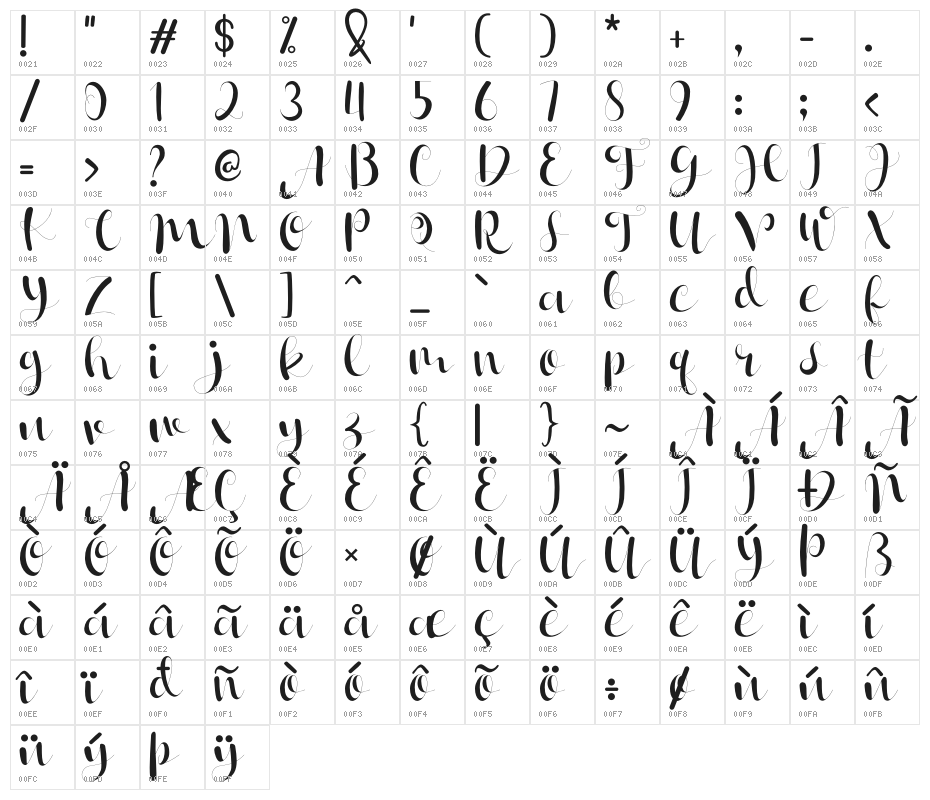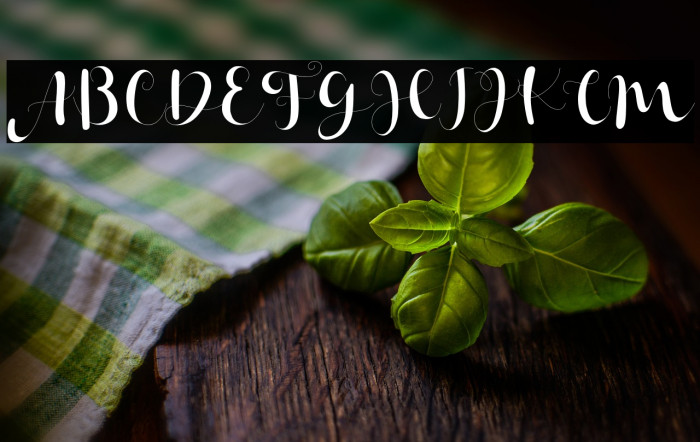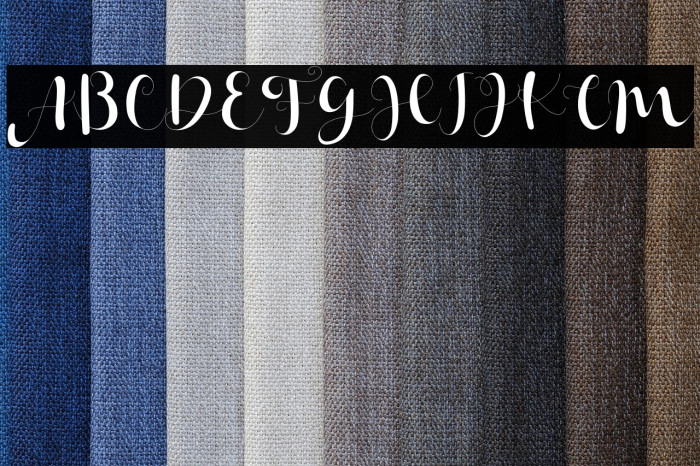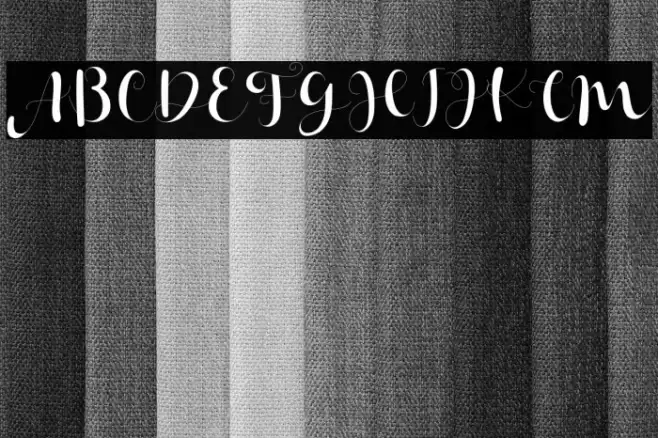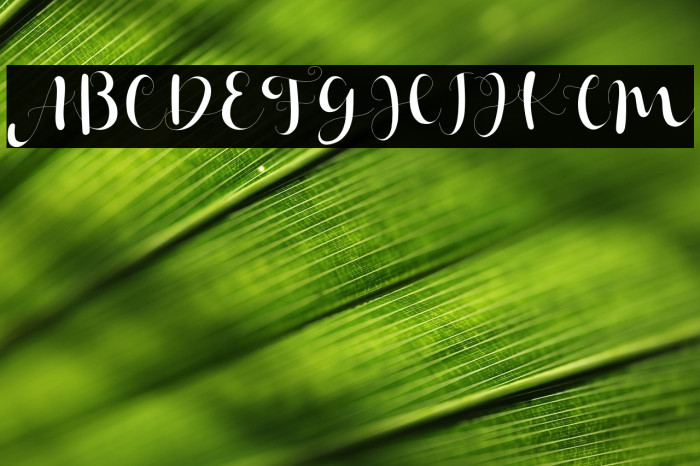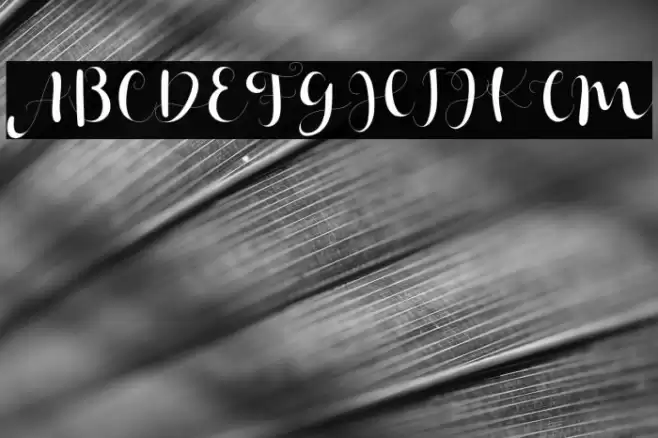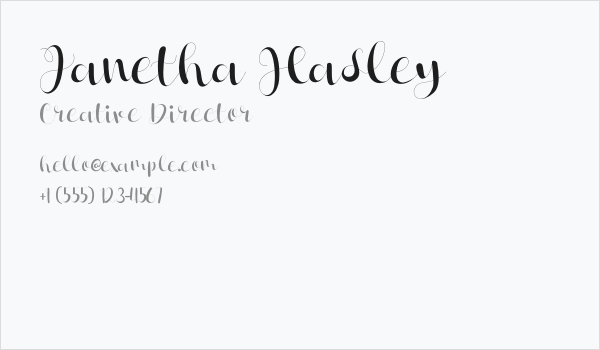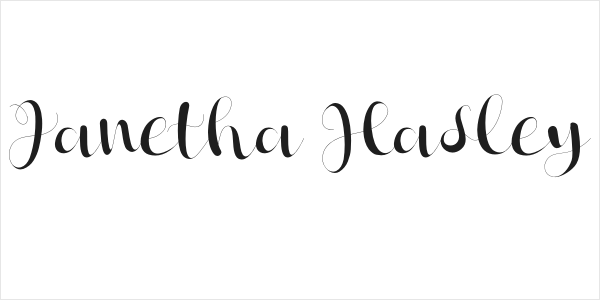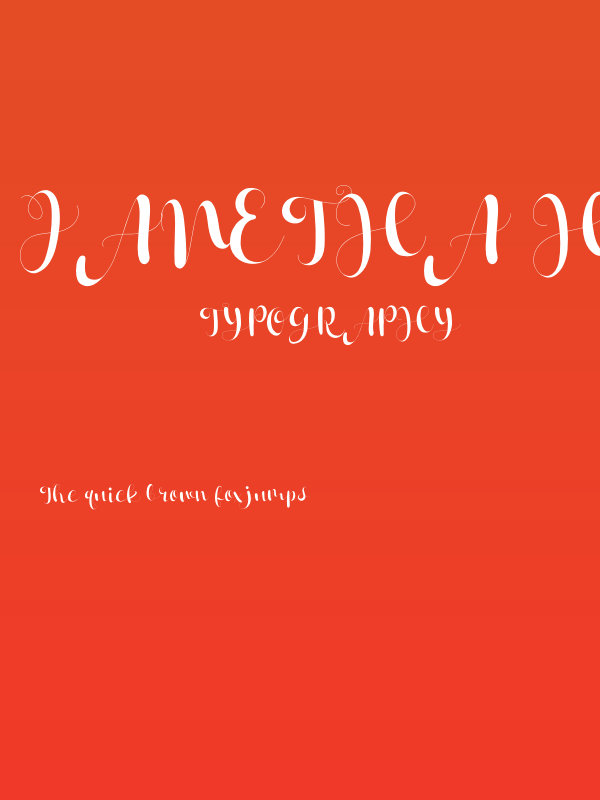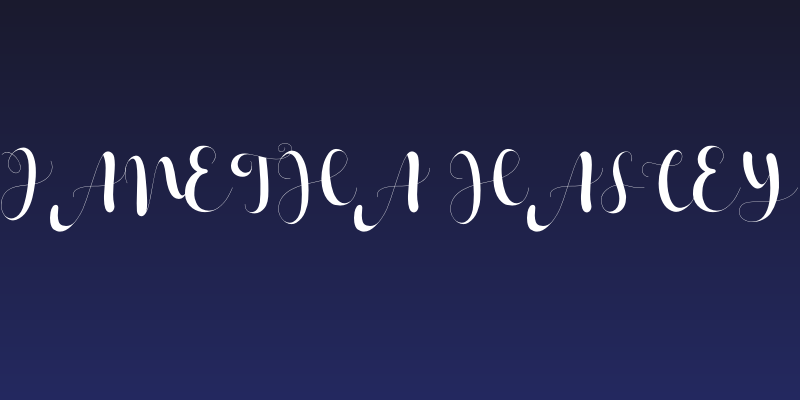
Janetha Hasley Font
Janetha Hasley Description
This font features an elegant and flowing script style with a modern twist. The characters are designed with a high contrast between thick and thin strokes, giving it a dynamic and sophisticated appearance. The uppercase letters are adorned with delicate swashes and flourishes, adding a touch of elegance and creativity. The lowercase letters maintain a consistent flow, enhancing readability while retaining the decorative nature of the font. The numerals and special characters are crafted to match the overall aesthetic, making it suitable for a variety of creative applications. The font's unique style makes it ideal for projects that require a personal and artistic touch.
| Use Case | Logos, Headlines, Invitations |
| Proposed Projects | Ideal for wedding invitations, branding, greeting cards, and artistic projects. |